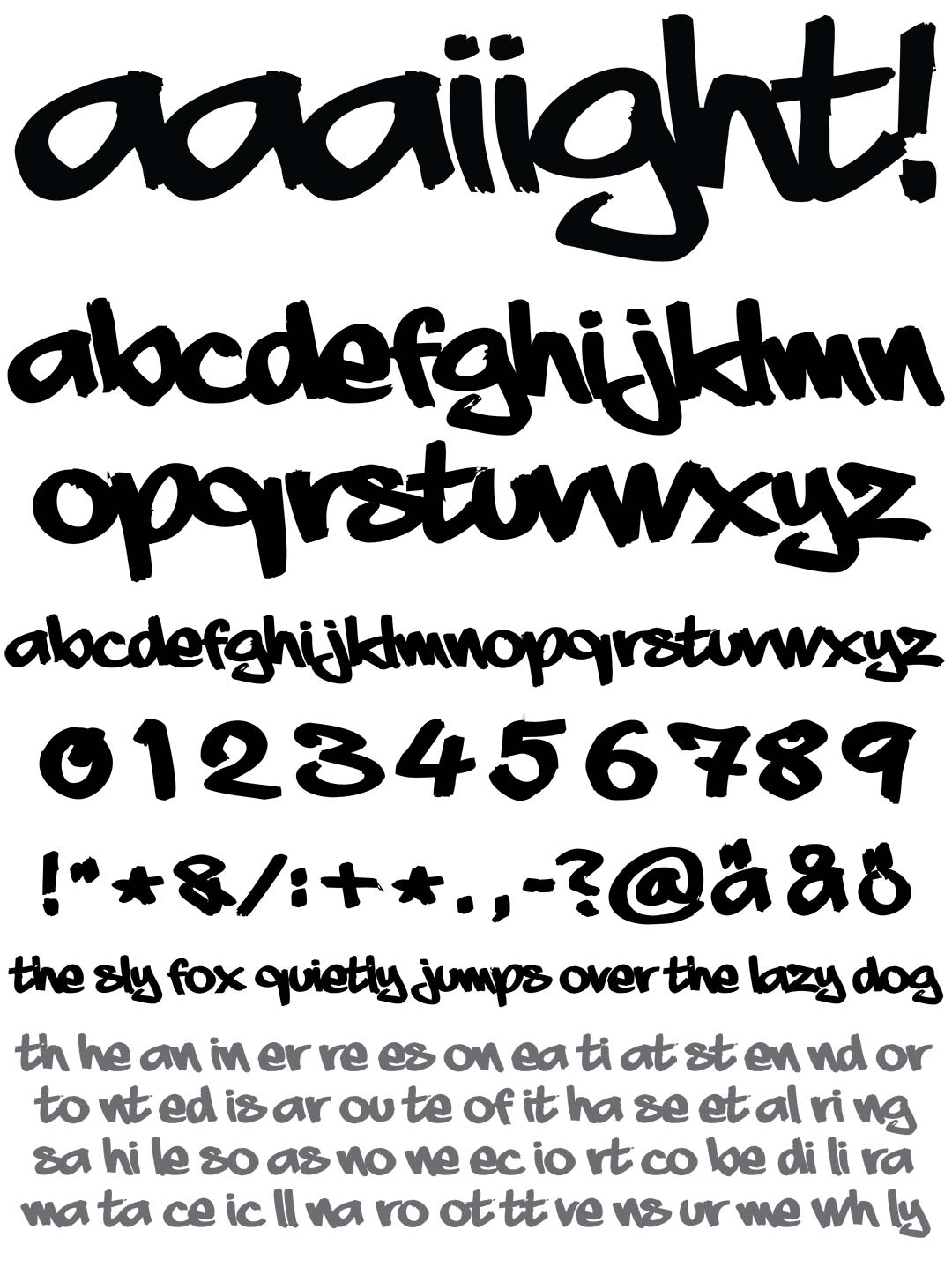
aaaiight!
aaaiight! Graffiti Alphabet
aaaiight! Graffiti Font Family
aaaiight: pernounced (ah-ite). Meaning: "alright". Aaaiight is actually a 2 font set containing the original style & a wider "Fat" style. This font family has a very full character set making it versitile & effective in non-english languages.